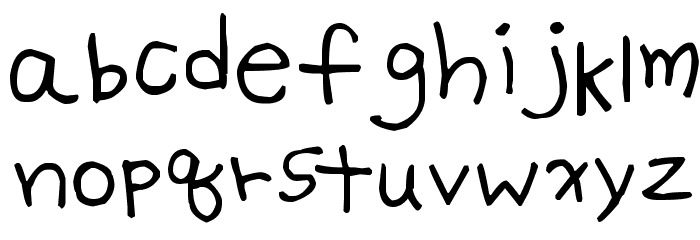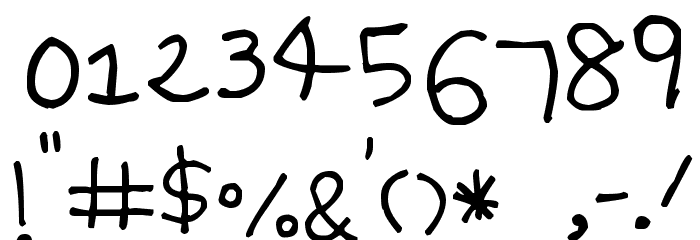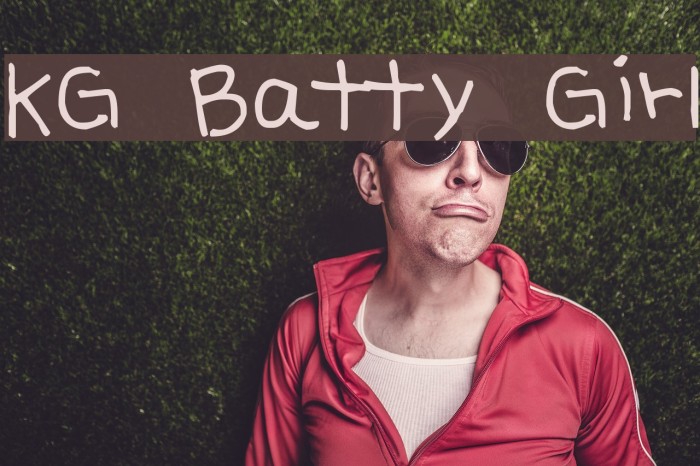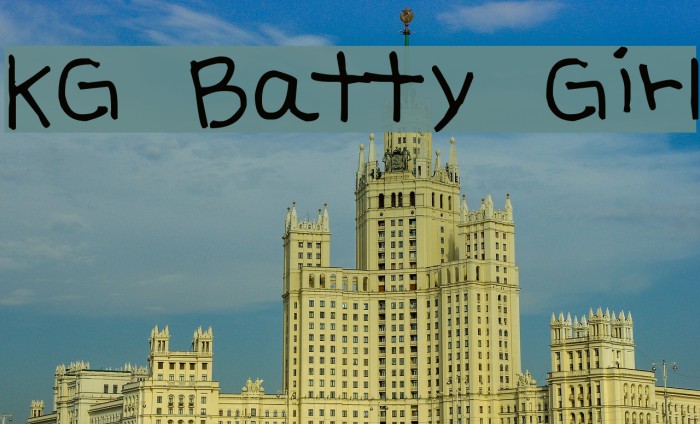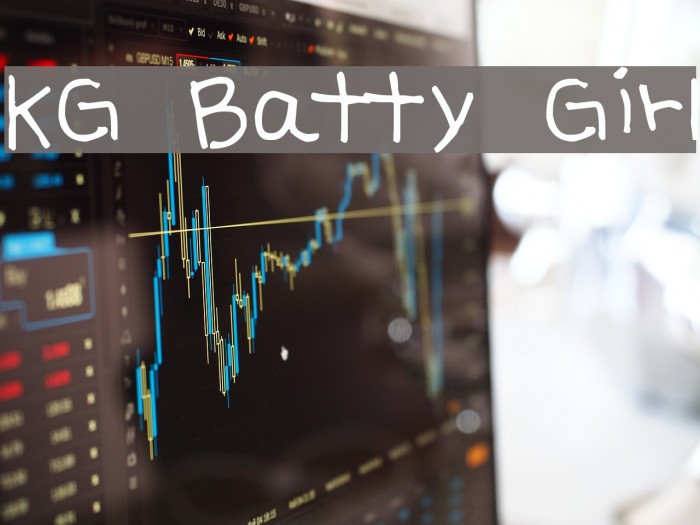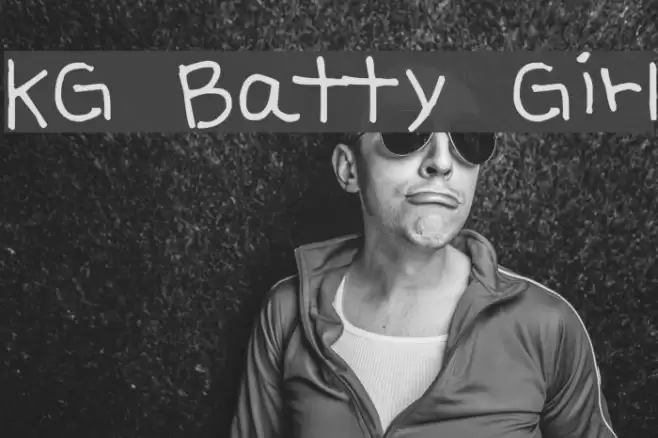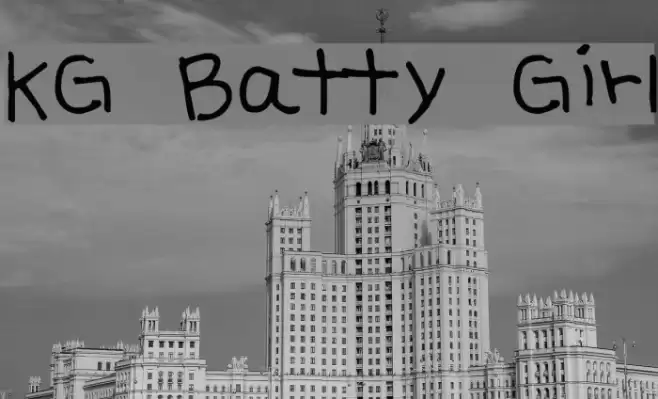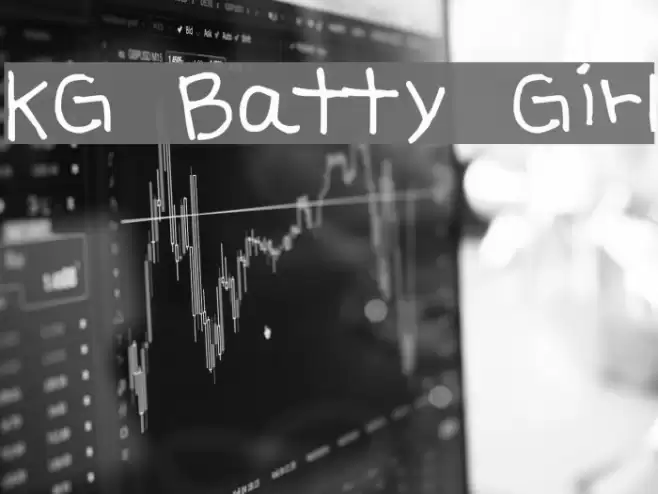
KG Batty Girl Font
This playful and whimsical font features a handwritten style with irregular, slightly slanted characters that convey a sense of fun and creativity. The strokes are uneven, giving it a casual and informal appearance. The uppercase and lowercase letters maintain a consistent style, with rounded edges and a slightly bouncy baseline. Numbers and special characters are designed to match the playful aesthetic, making the font suitable for projects that require a personal touch. The overall look is approachable and friendly, perfect for adding a unique flair to any design.
A playful, handwritten font with a whimsical and casual style.
- Proposed Projects: Ideal for children's books, greeting cards, playful branding, and creative social media graphics.
- Overall Style: Playful
- Use Case: Headlines, Logos, Informal Text